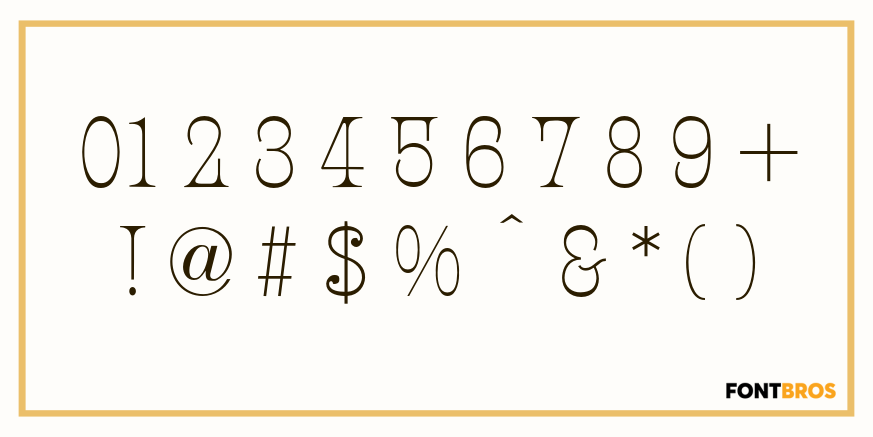
Athena
Font Family by Solotype
This beautiful old design was originated at the Connor Foundry, New York, about 1888.
Ideal for the small ?in between? lines in modern versions of Victorian job printing.